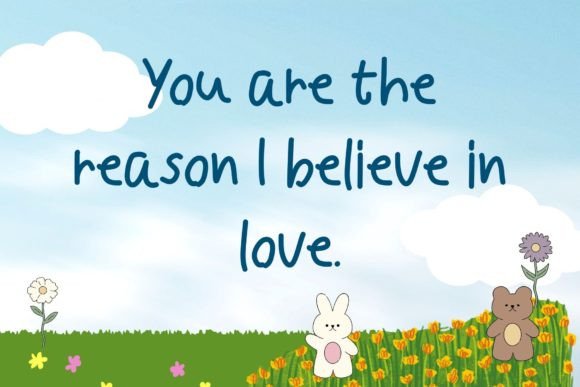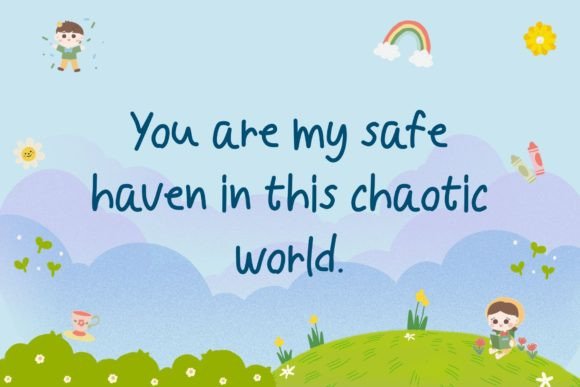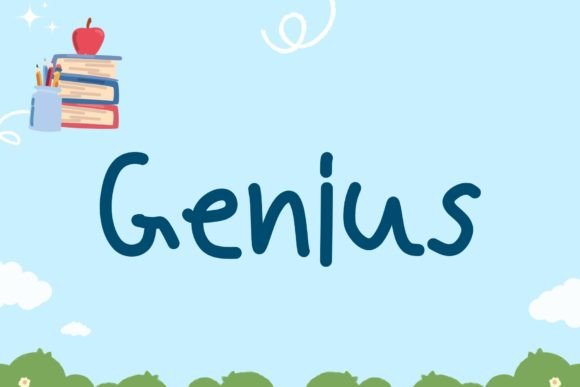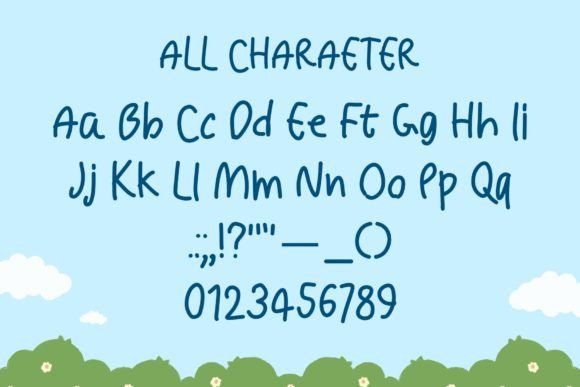
Introducing Genius: The Font that Sparks Inspiration and Ignites Imagination
In the world of design, the right font can make all the difference. It’s the perfect complement to your artistic vision, adding a touch of personality and flair to your creations. For designers and crafters who strive for brilliance, we present to you Genius – a font that sparks inspiration and ignites your imagination.
Designed with Artistic Flair and Precision
Genius is more than just a font – it’s an experience. Designed with artistic flair and precision, this font is the perfect choice for those who demand excellence in their designs. Each letterform has been carefully crafted to inspire creativity and bring a touch of originality to your projects.
Unique and Innovative Letterforms
What sets Genius apart from other fonts is its unique and innovative letterforms. Every character is designed to spark imagination and add a touch of brilliance to your designs. Whether you’re designing logos, packaging, or promotional materials, Genius is the perfect choice to make your creations stand out from the crowd.
The Perfect Choice for Designers and Crafters
As a designer or crafter, you know the importance of having a font that can keep up with your creative vision. Genius is designed to be versatile and adaptable, making it perfect for a wide range of projects. From branding and advertising to packaging and digital media, this font is sure to impress.
Key Features of Genius Font
- Unique and innovative letterforms: Each character is designed to add a touch of originality to your designs.
- Artistic flair and precision: Every letterform is carefully crafted to inspire creativity and bring a touch of brilliance to your projects.
- Versatile and adaptable: Perfect for a wide range of projects, from branding and advertising to packaging and digital media.
- Easy to read and understand: Despite its creative and artistic design, Genius is easy to read and understand, making it perfect for body text and headlines.
Inspiration for Your Next Project
Are you looking for inspiration for your next project? Here are a few ideas to get you started:
- Branding and logos: Use Genius to create a unique and memorable logo for your brand.
- Packaging design: Add a touch of elegance and sophistication to your packaging with Genius.
- Promotional materials: Use Genius to create eye-catching promotional materials, such as brochures and flyers.
- Digital media: Use Genius to add a touch of creativity and flair to your digital media, such as social media graphics and website headers.
In conclusion, Genius is a font that sparks inspiration and ignites imagination. With its unique and innovative letterforms, artistic flair and precision, and versatility, it’s the perfect choice for designers and crafters who strive for brilliance. Whether you’re designing logos, packaging, or promotional materials, Genius is sure to make your creations stand out from the crowd.